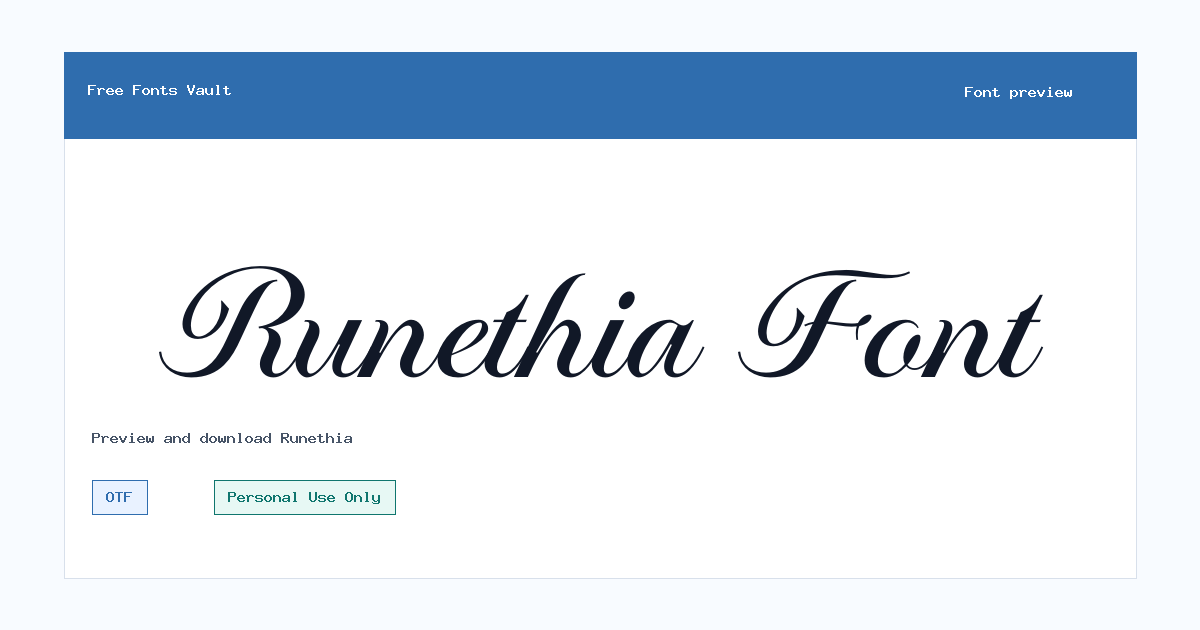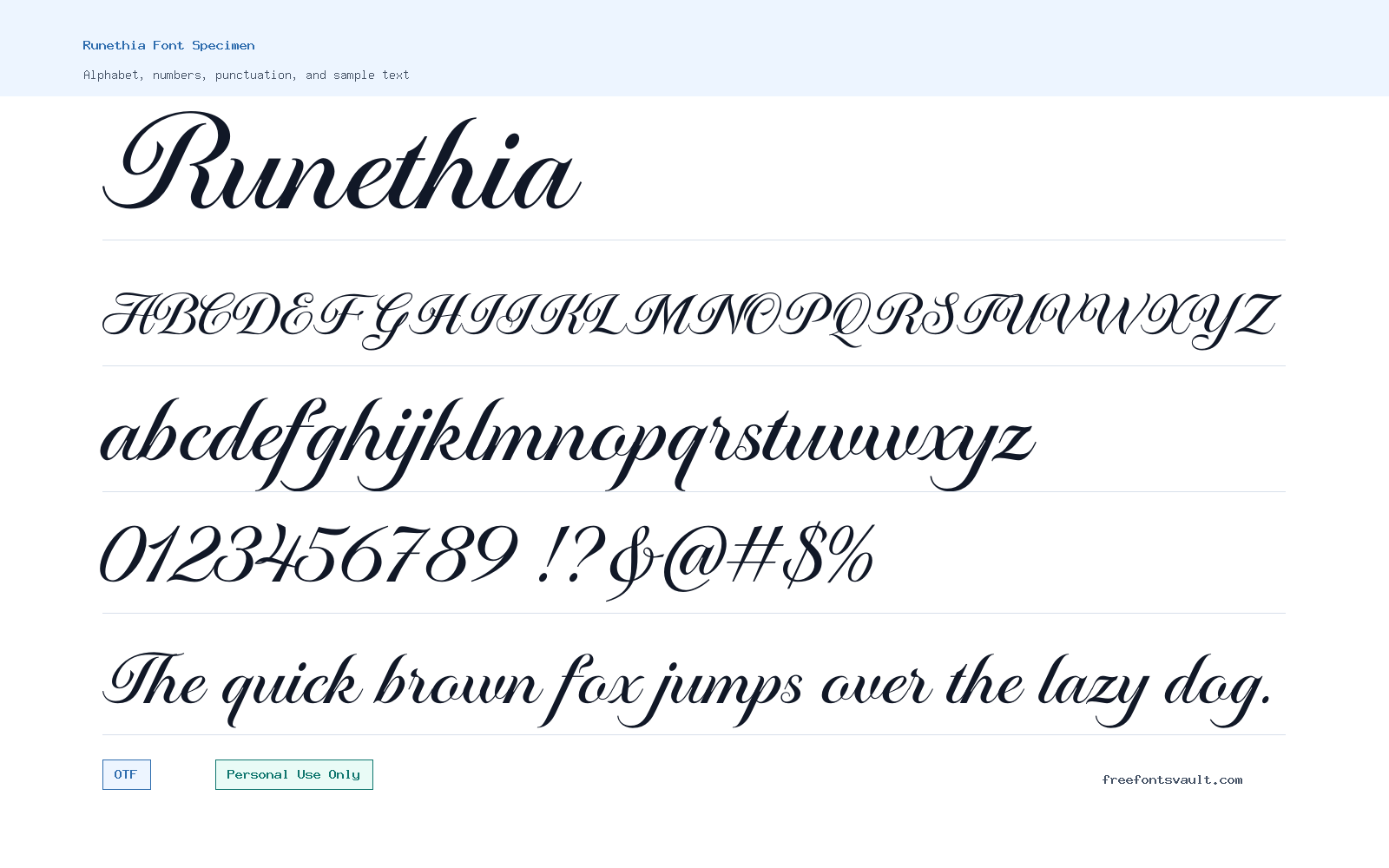
Runethia
- Designer Muhammad Yusron Billah
About Runethia
Runethia works best when you need lettering that feels flowing and crafted. Its script style makes it more suitable for names, headings, invitations, quote graphics, packaging mockups, social posts, and other designs where a few words need a graceful handwritten look. Because it is a calligraphy script, the strongest results usually come from using it at larger sizes where the curves and letter connections have room to show.
For previewing, try words with mixed upper and lower case, then test names or phrases that include letters such as R, h, y, and g to see how the rhythm feels. Avoid using Runethia for body copy, menus, captions, or dense paragraphs, since decorative scripts can become harder to read when they are small or crowded. If your design needs supporting text, pair it with a quiet serif or clean sans serif so Runethia can stay focused on the main word or phrase.
- Calligraphy script style suited to short display text and decorative lettering.
- Wedding-style headings, name cards, invitations, and greeting designs.
- Quote images, logo mockups, social graphics, and short decorative titles.
Use Runethia sparingly for display words and check legibility at the final size before exporting. For cleaner layouts, give the lettering extra spacing around it and pair it with a simpler font for dates, descriptions, addresses, or longer supporting text.
What kind of font is Runethia?
Runethia is a calligraphy script font. It is better for decorative words, names, and headlines than for long paragraphs.
Who designed Runethia?
How should I test Runethia before using it?
Type your actual project wording in the preview, test both uppercase and lowercase letters, and check the design at the size you plan to use. Script fonts can look very different depending on the word.